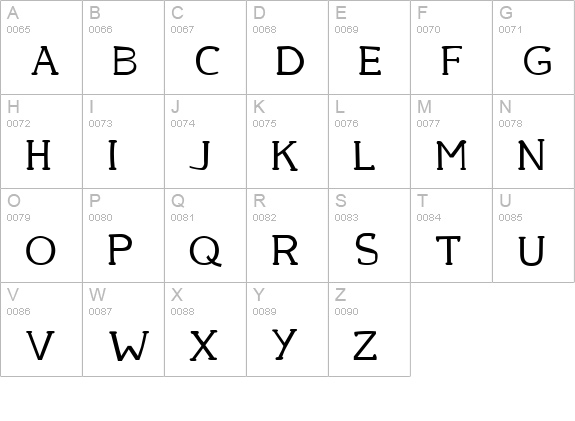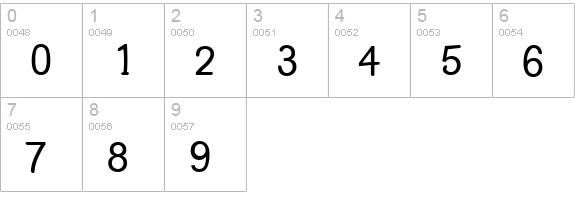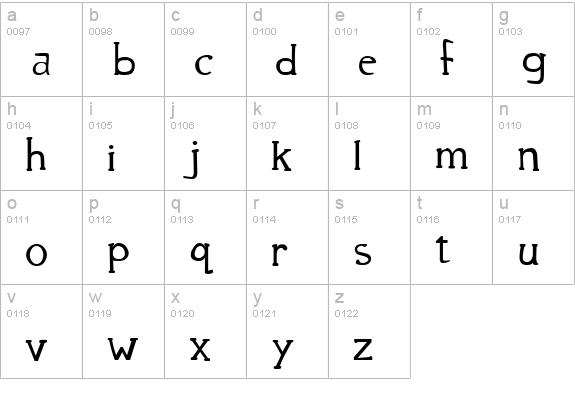
39 Smooth Font Details
39 Smooth font is a sleek and modern typeface that exudes sophistication and elegance. With its clean lines and smooth curves, this font is perfect for a wide range of design projects, from branding to editorial design. The versatility of 39 Smooth font makes it a must-have for any designer looking to add a touch of refinement to their work. Best of all, 39 Smooth font is completely free to download at FontsMarket.com. Whether you're a seasoned professional or just starting out, you can easily access this stylish font and elevate your designs to the next level. Don't miss out on the opportunity to enhance your projects with the timeless appeal of 39 Smooth font. Download it today and see the difference it can make in your work!